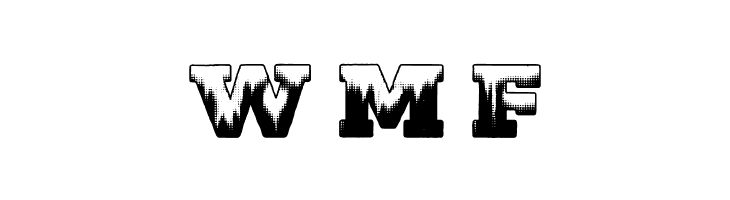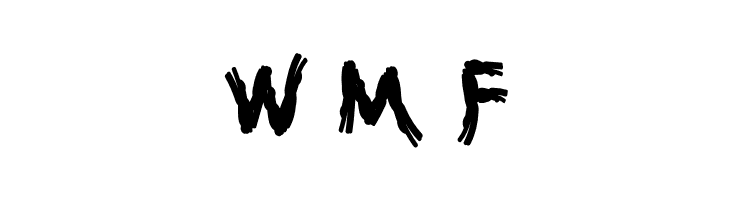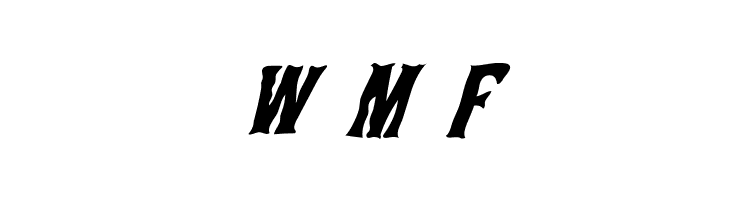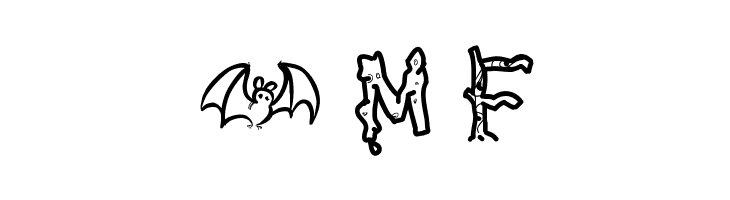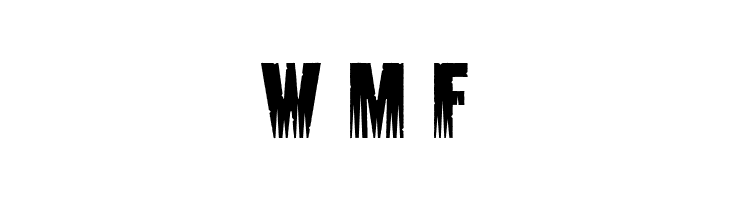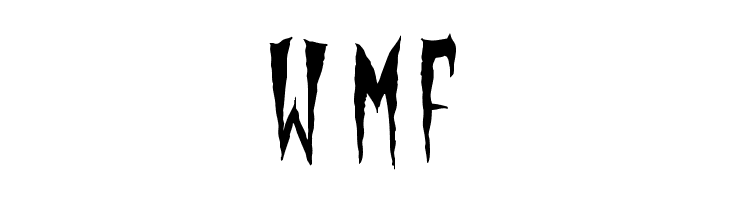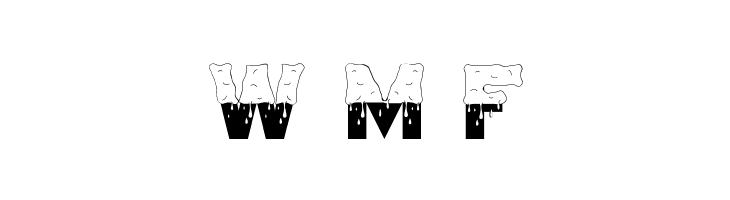
A bold, graffiti-inspired font with a playful, urban style.
A bold, decorative font with a melting gradient effect and shadowed edges.
A bold, splatter-effect font with a dynamic and edgy style.
A jagged, horror-themed font with sharp, irregular edges.
A chilling, jagged font perfect for horror themes.
A jagged, scratch-like font with a raw, edgy aesthetic.
A bold, brush-style font with a spooky, textured appearance.
A bold, playful font with a hand-drawn, melted appearance.
A chilling, jagged font ideal for horror-themed designs.
A diverse set of horror-inspired decorative display fonts with dramatic and eerie styles.
A playful, winter-themed decorative font with snow-covered characters.
A spooky, slime-inspired outline font with a playful, eerie aesthetic.
A bold, edgy font with sharp, jagged edges and a rebellious, grunge-like style.
A bold, jagged font with a horror-inspired, eerie aesthetic.
A spooky, ghostly font with fluid, irregular strokes and a haunting aesthetic.
A jagged, eerie font ideal for horror themes and Halloween designs.
A whimsical, Halloween-themed decorative font with spooky elements.
A bold, fluid font with a splash-like, dynamic design.
A spooky, jagged font ideal for horror themes.
A bold, distressed font with a dramatic, melting effect.
A bold, jagged font with a shadow effect, perfect for horror-themed designs.
A decorative font with a melting, fluid style and bold, irregular strokes.
A bold, playful font with a unique melted effect, perfect for creative projects.
A bold, liquid-inspired font with a dynamic and playful design.
A dramatic, jagged font with a spooky, gothic style.
A bold, jagged font with a horror-inspired, distressed style.
A playful, icy font with bold, rounded letters and a frosty theme.
A decorative font with swirling, liquid-like patterns, creating a bold and artistic effect.
A bold, gothic-style font with a dramatic, distressed appearance.
A playful, melting-effect font with bold, blocky characters.
A drippy, icy font perfect for winter or horror themes.
A bold, fluid, and decorative font with a melting appearance.
A bold, playful font with a fluid, liquid-like design.
A playful, bold font with a melting, liquid-like effect and thick outlines.
A haunting, jagged font with a spooky, ghostly aesthetic.